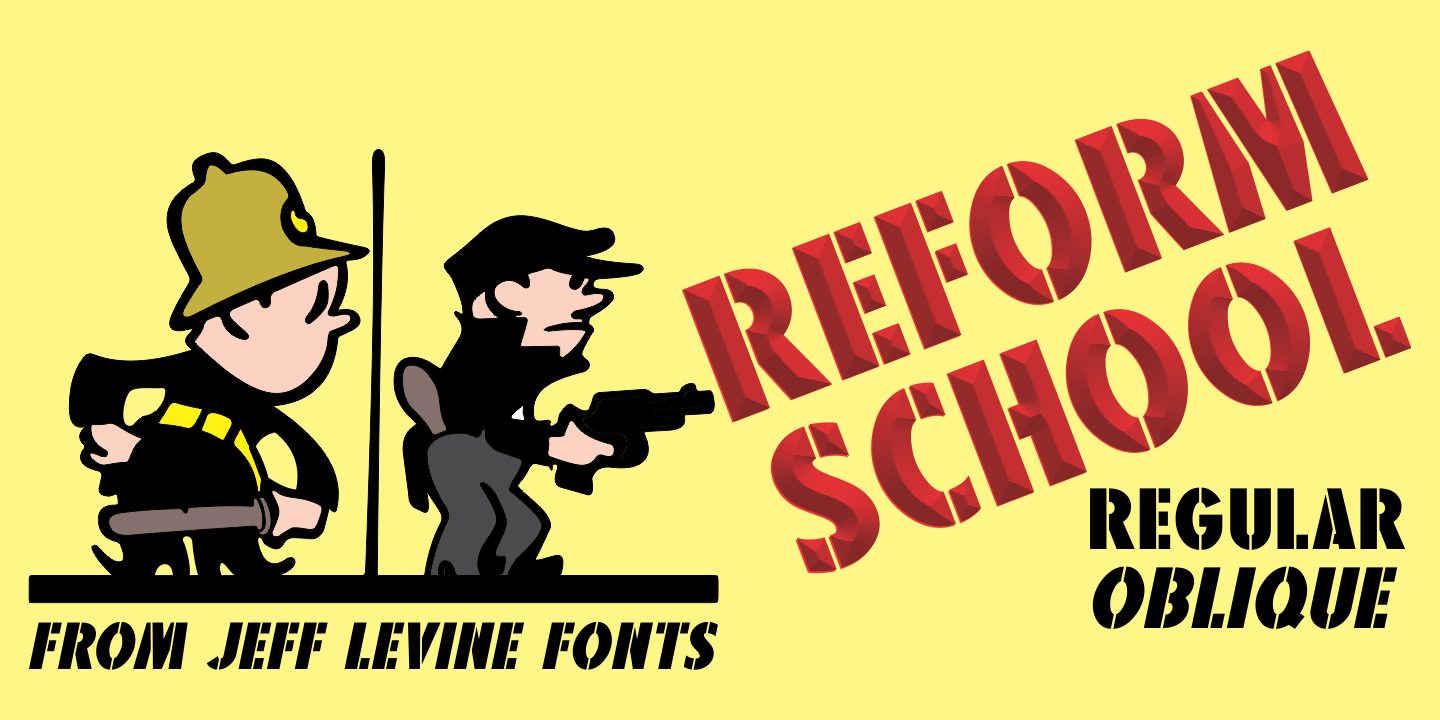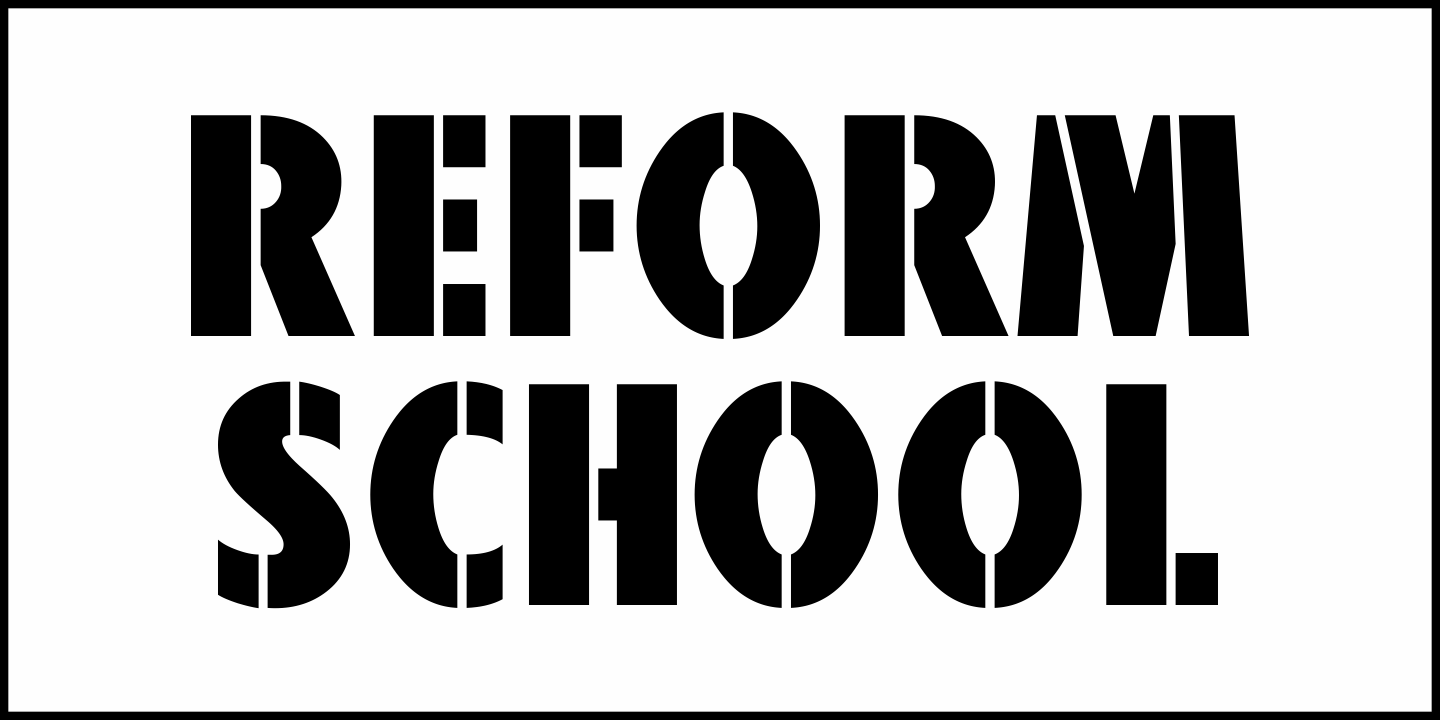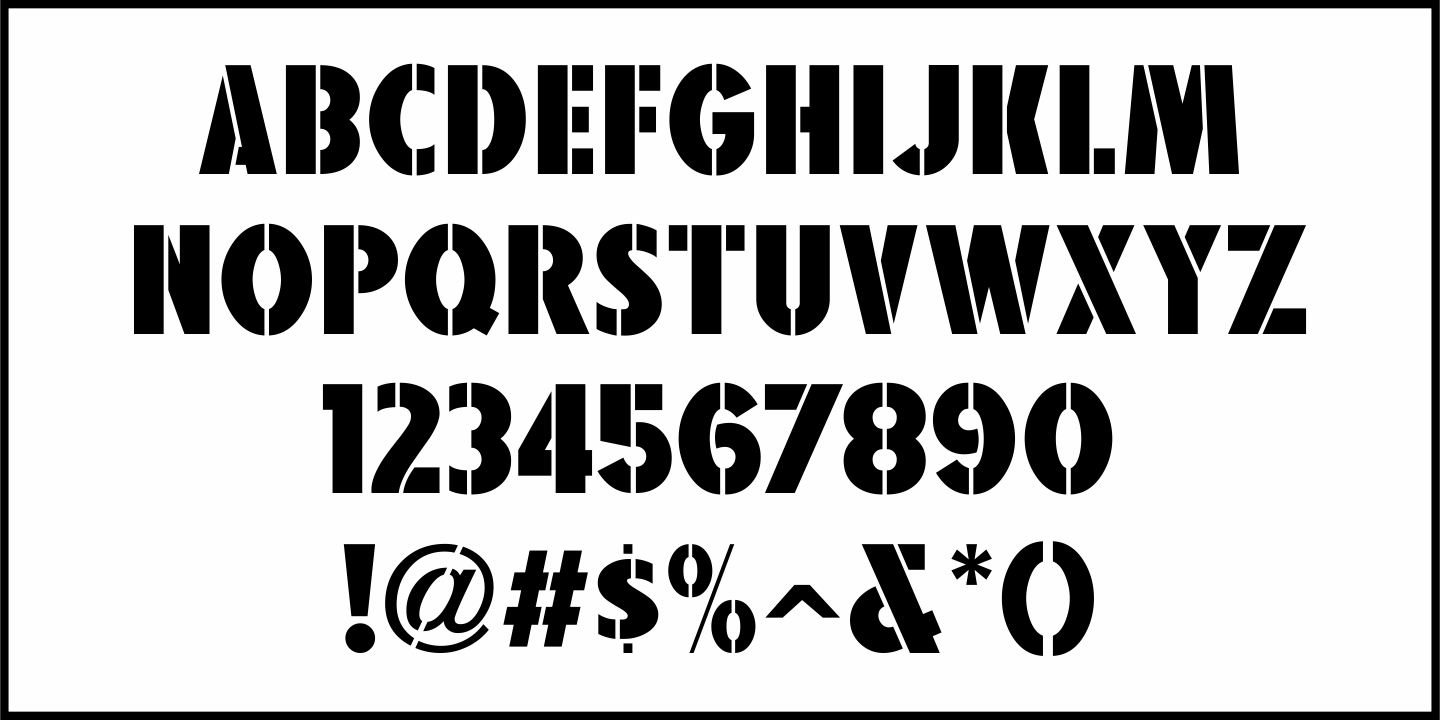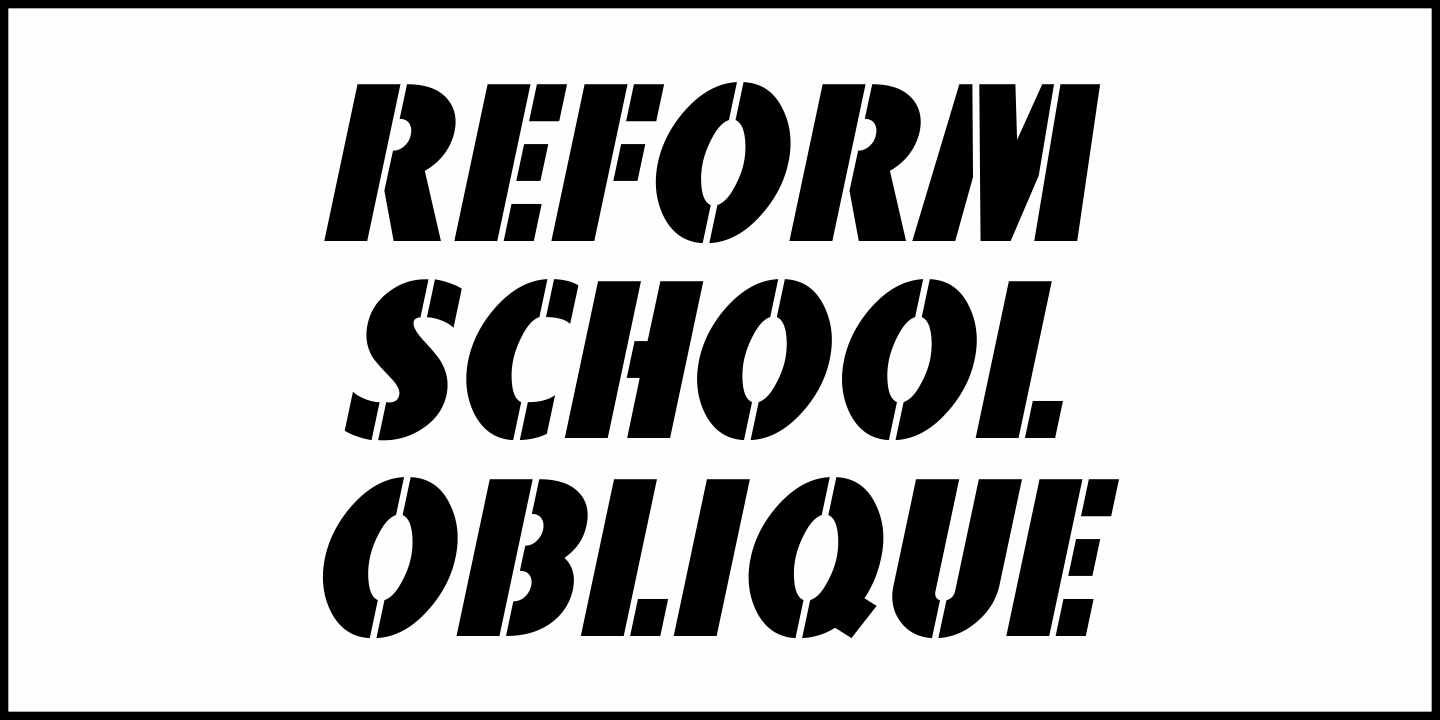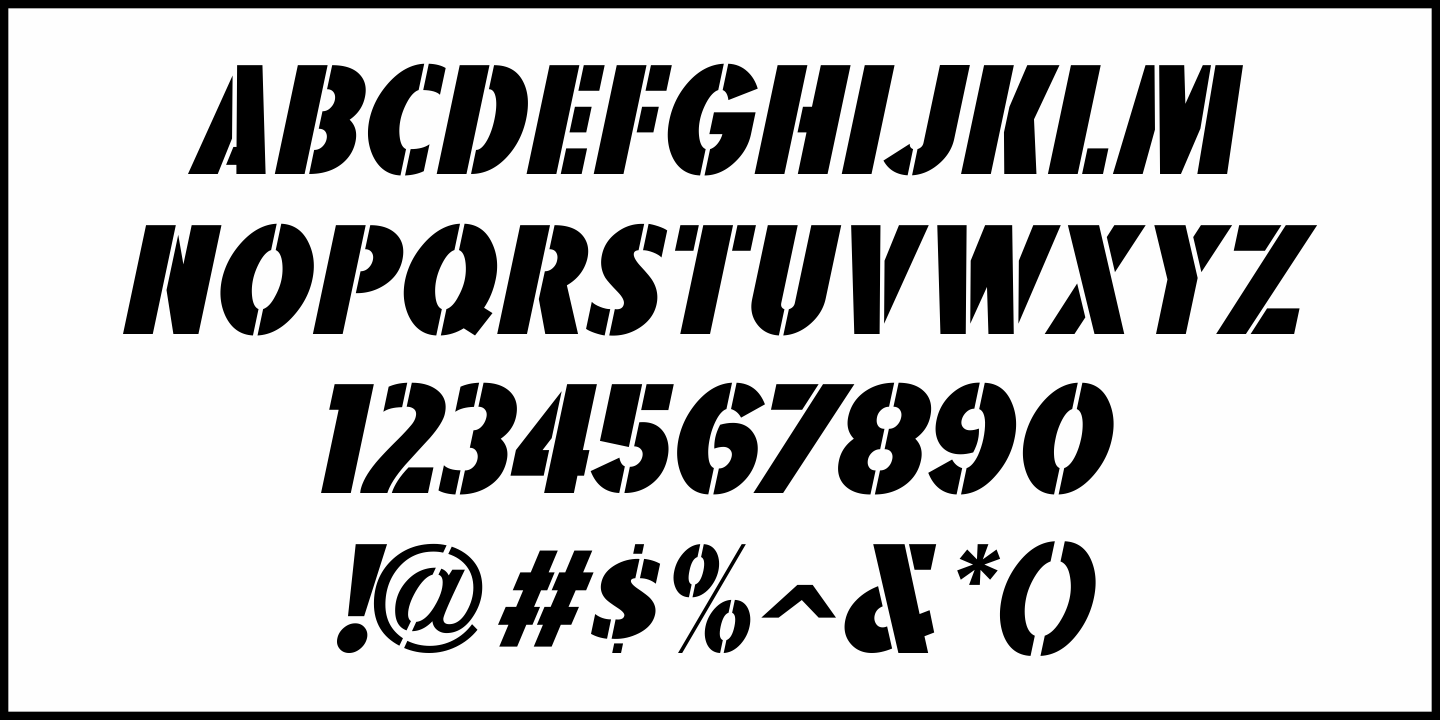
Reform School
The extra bold sans serif stencil lettering on movie posters and lobby cards for “Reform School Girl” (a 1957 film by American International Pictures) was the basis of Reform School JNL, which is available in both regular and oblique versions.
Reform School JNL Regular by Jeff Levine Fonts